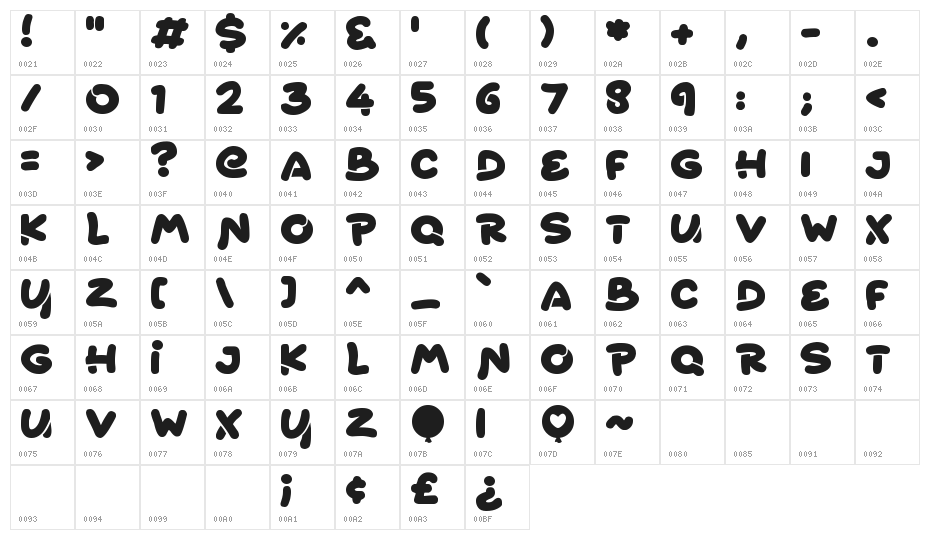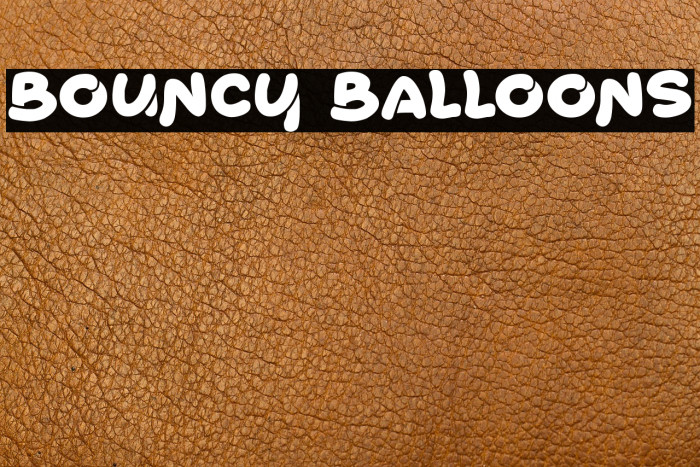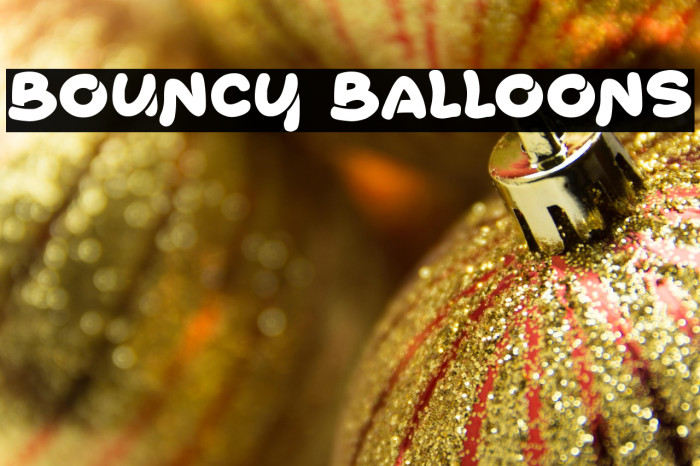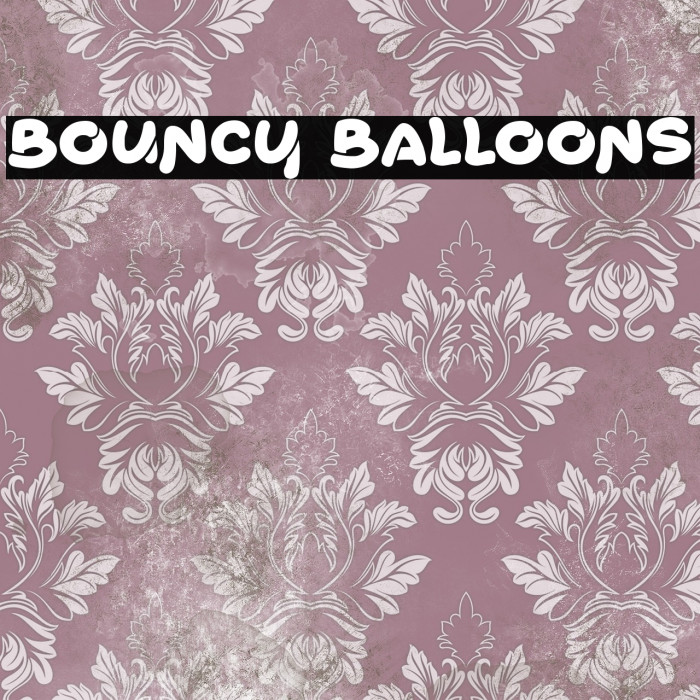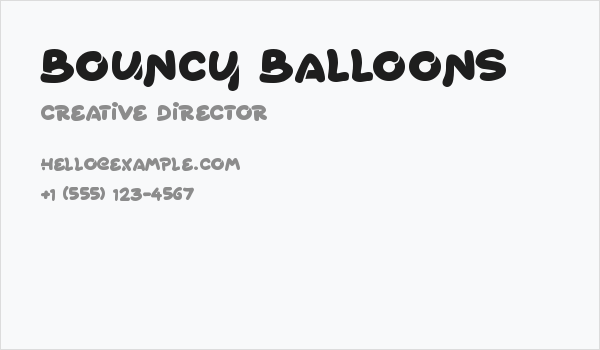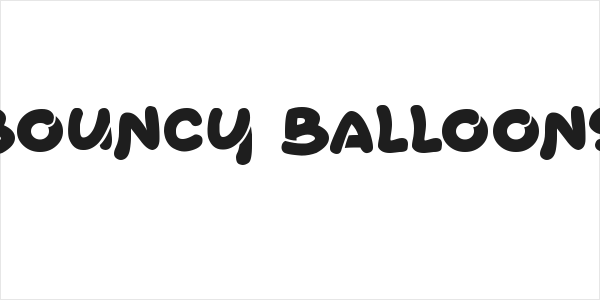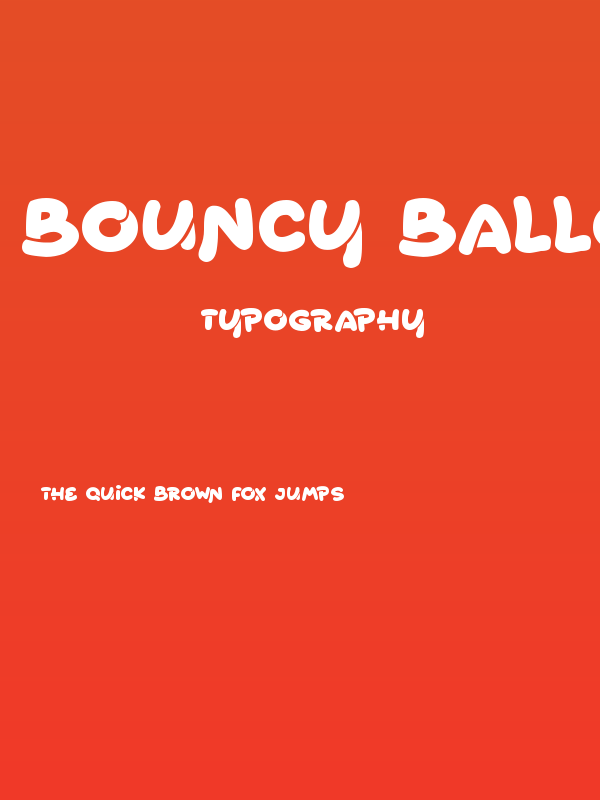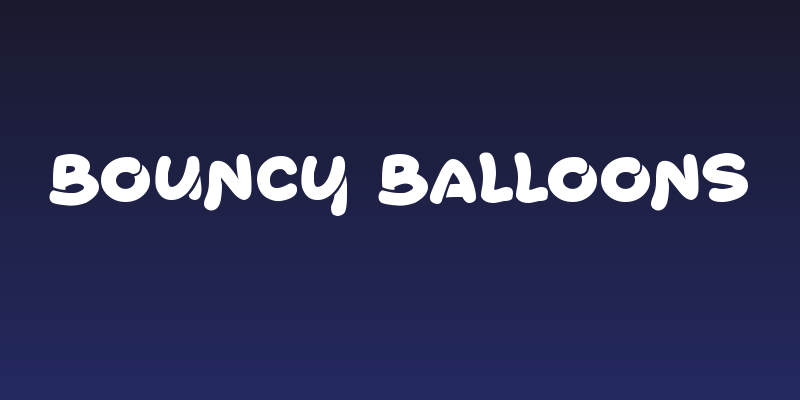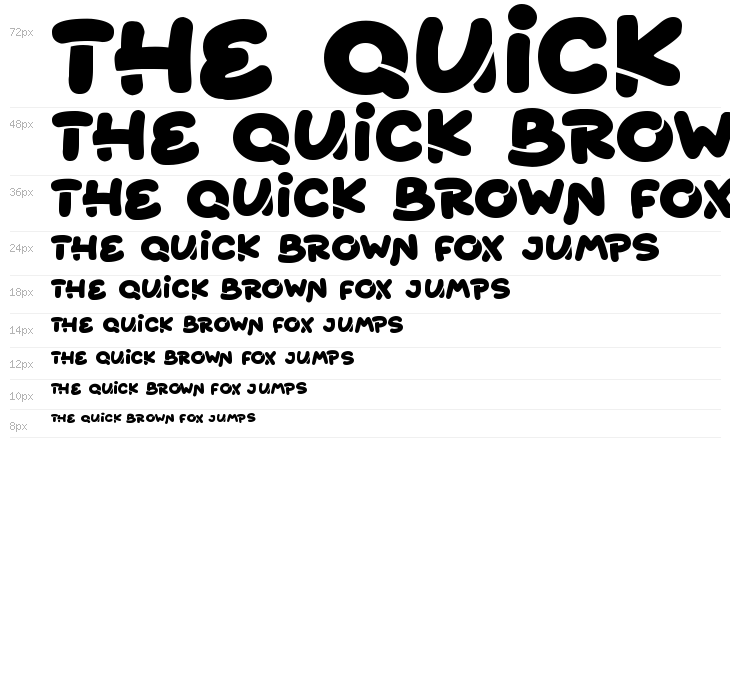
Bouncy Balloons Font
Bouncy Balloons Description
A playful, rounded display font with thick, bubbly letterforms resembling inflated balloons. The characters have a soft, friendly appearance with consistent stroke weight and exaggerated curves, making the font highly decorative and attention-grabbing.
| Overall Style | Playful, Decorative, Fun |
| Use Case | Headlines, Logos, Posters, ChildrenΓ’β¬β’s materials |
| Proposed Projects | ChildrenΓ’β¬β’s party invitations, playful branding, posters, greeting cards, event flyers, toy packaging. |